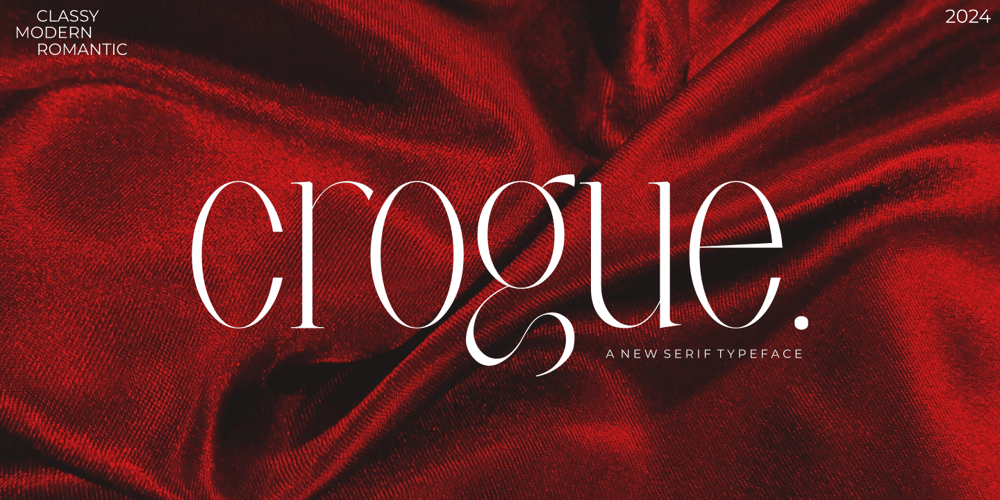
Crogue Font Family was designed by Risca Anitawati and published by Reyrey Blue Std. Crogue contains 1 styles and family package options. Introducing, Crogue, a perfect blend of elegance and femininity, It classy and modern serif.This type of font is perfectly made to be applied especially in logos, headlines, signage, and the other various formal forms such as invitations, labels, logos, magazines, books, greeting/wedding cards, packaging, fashion, makeup, stationery, novels, labels or any advertising purpose. This product was created to help you make your digital images even more beautiful and unique.